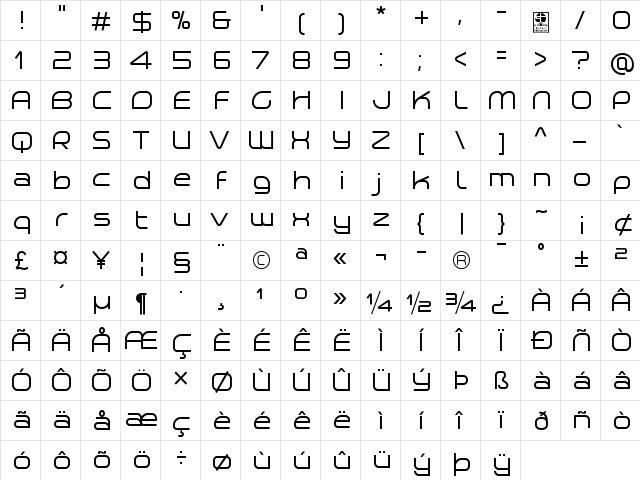
Planetium-X Regular Demo Regular
| Foundry | StudioTypo |
| Designer | Mehmet Abac |
Design Context for Planetium-X Regular Demo Typeface
Planetium-X Regular Demo takes a measured approach to typography — its balanced proportions and neutral character make it a reliable workhorse for both digital and print work.